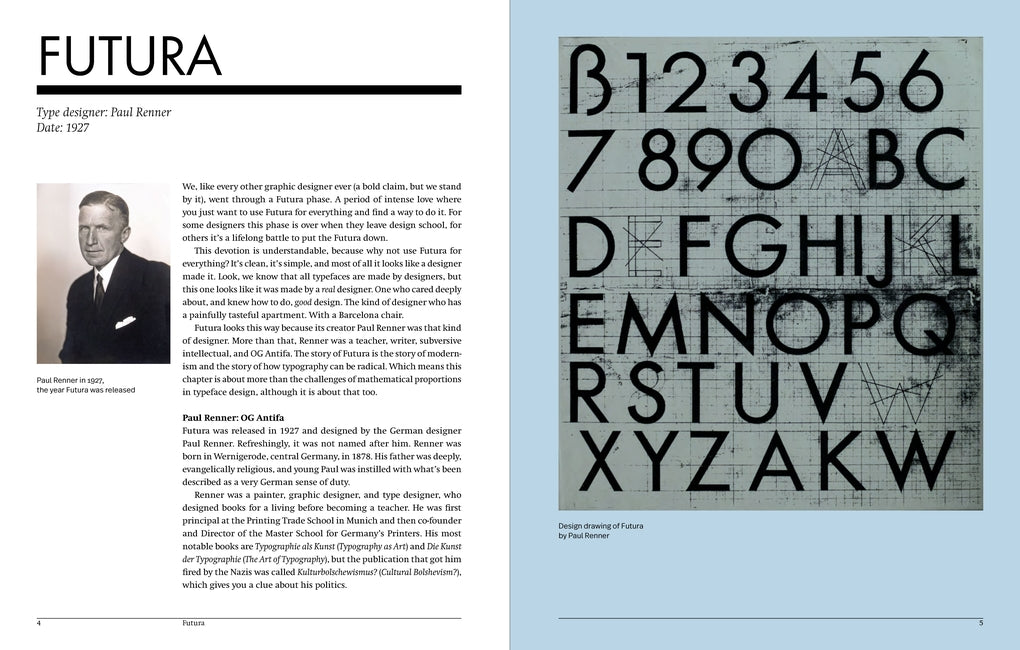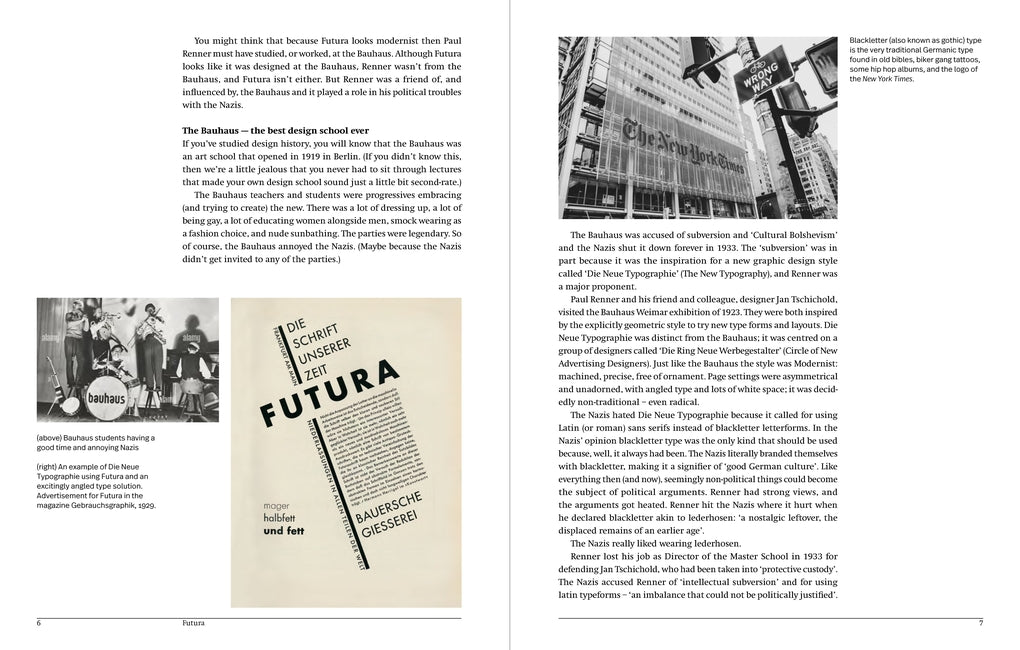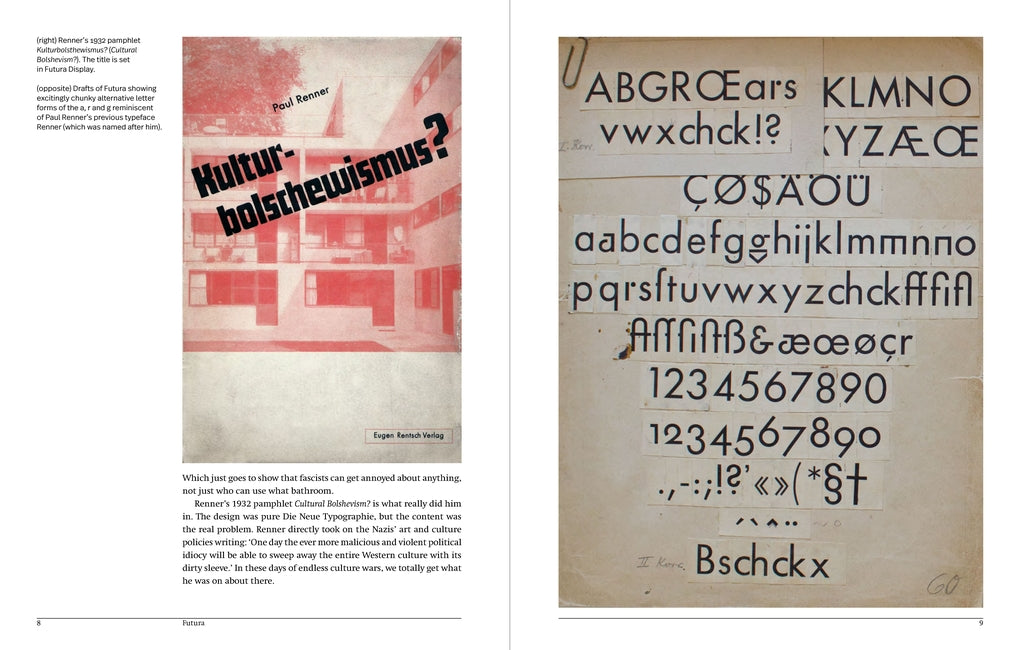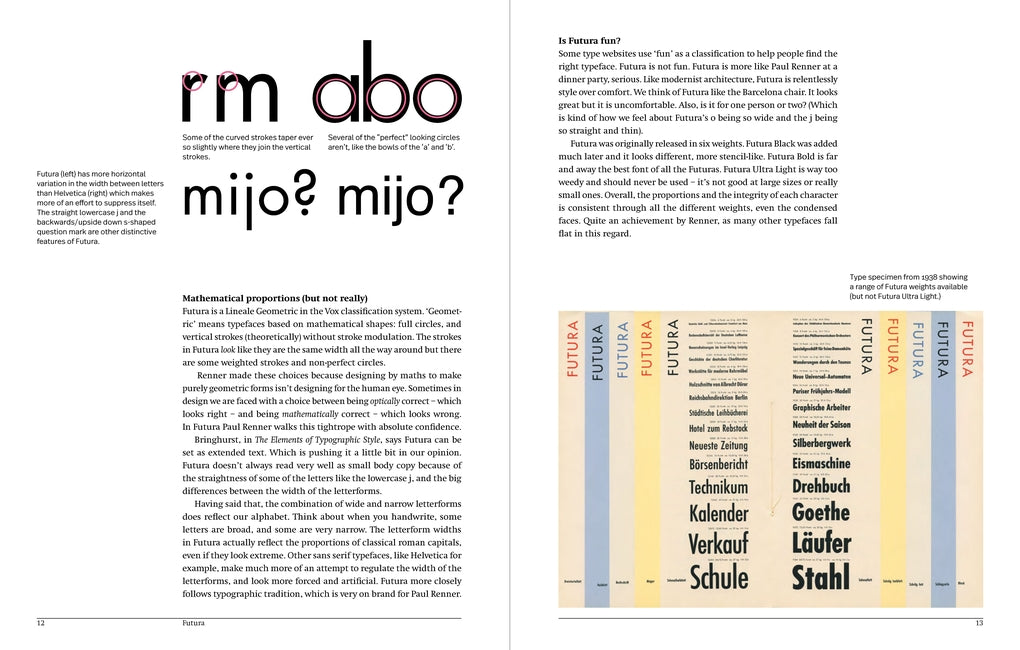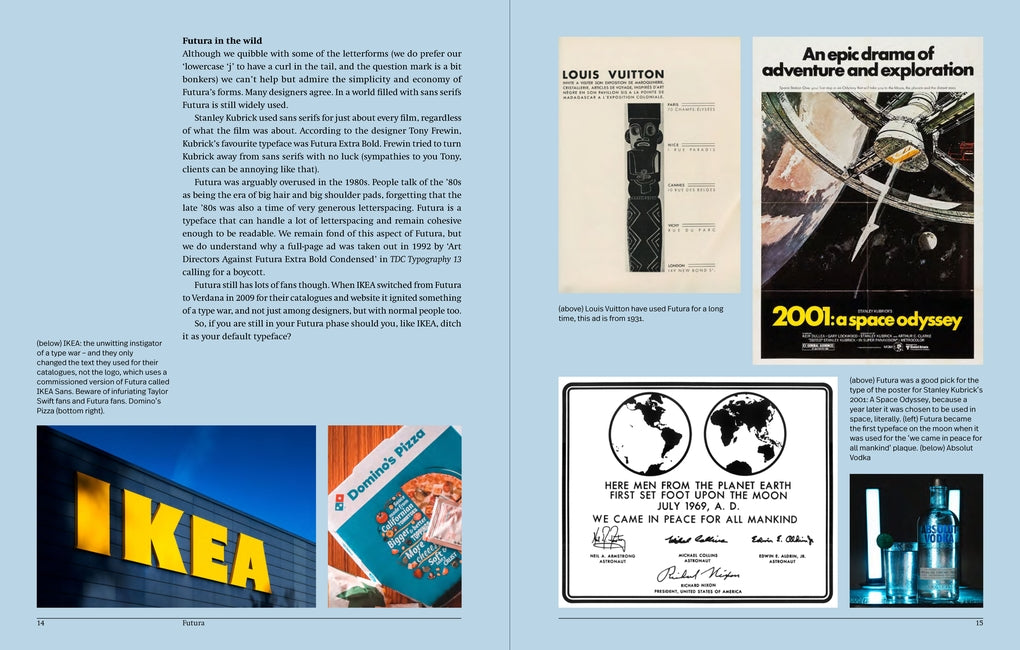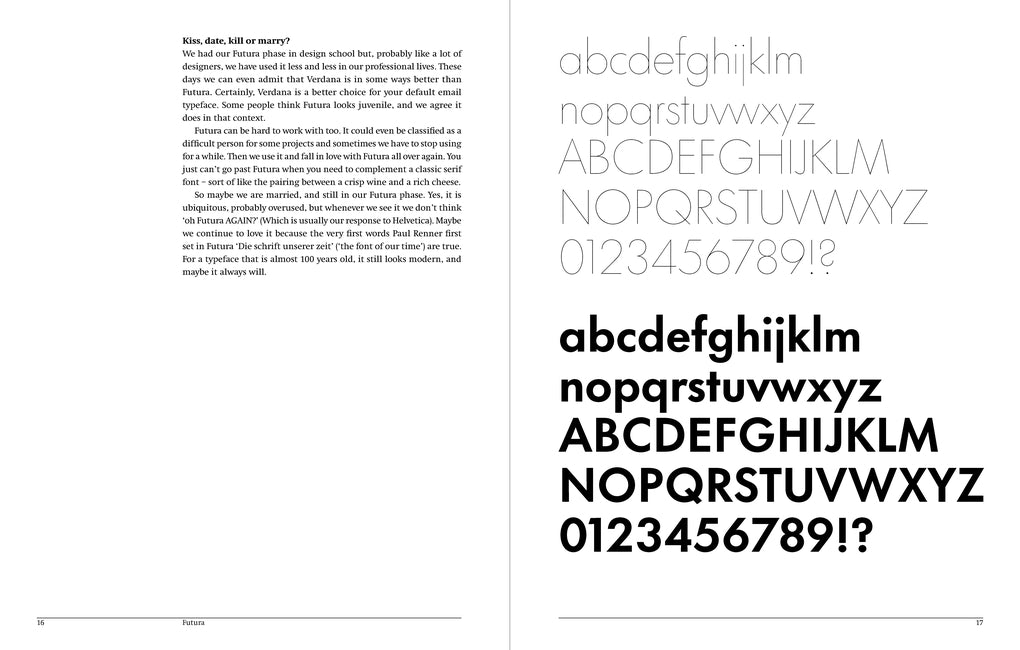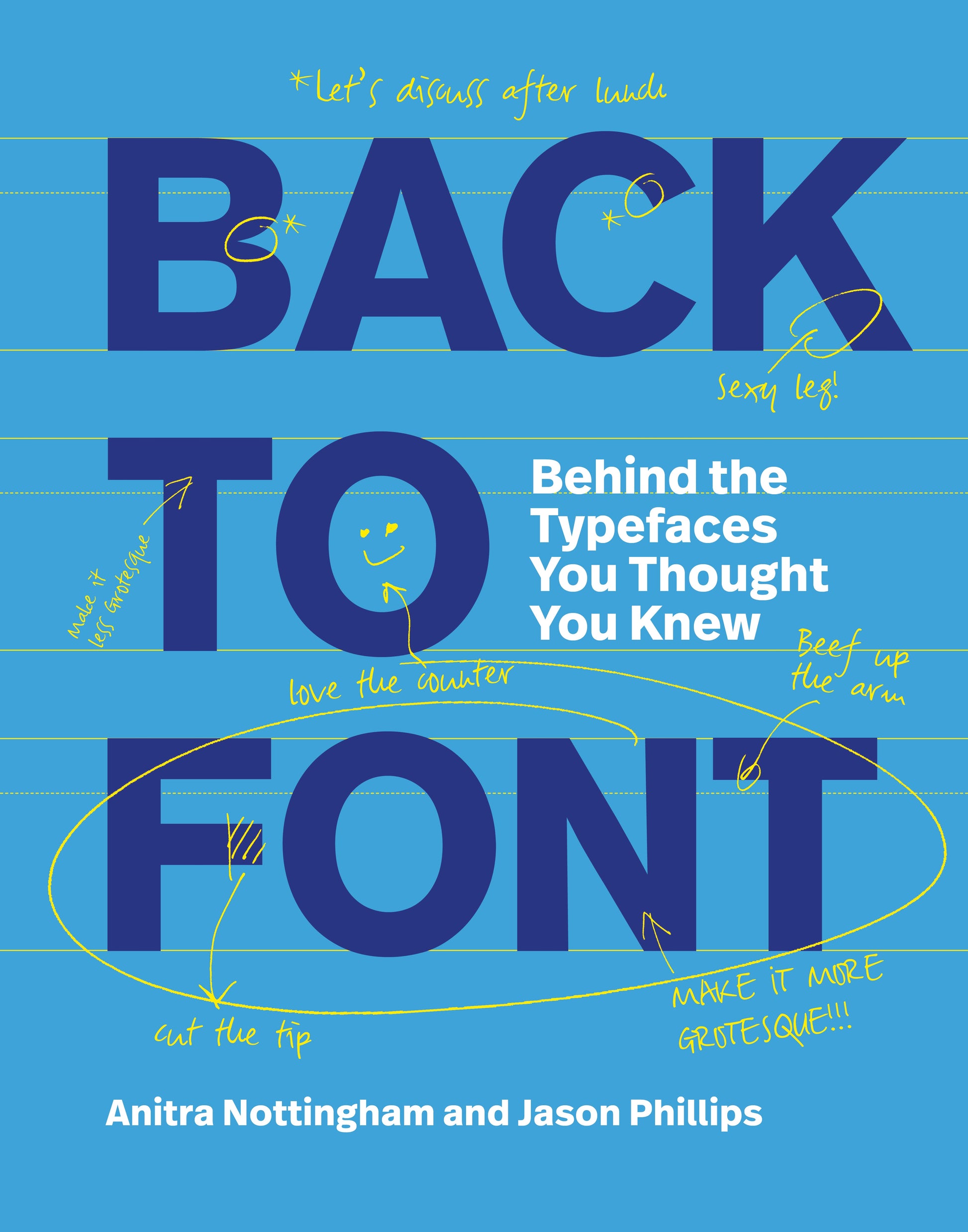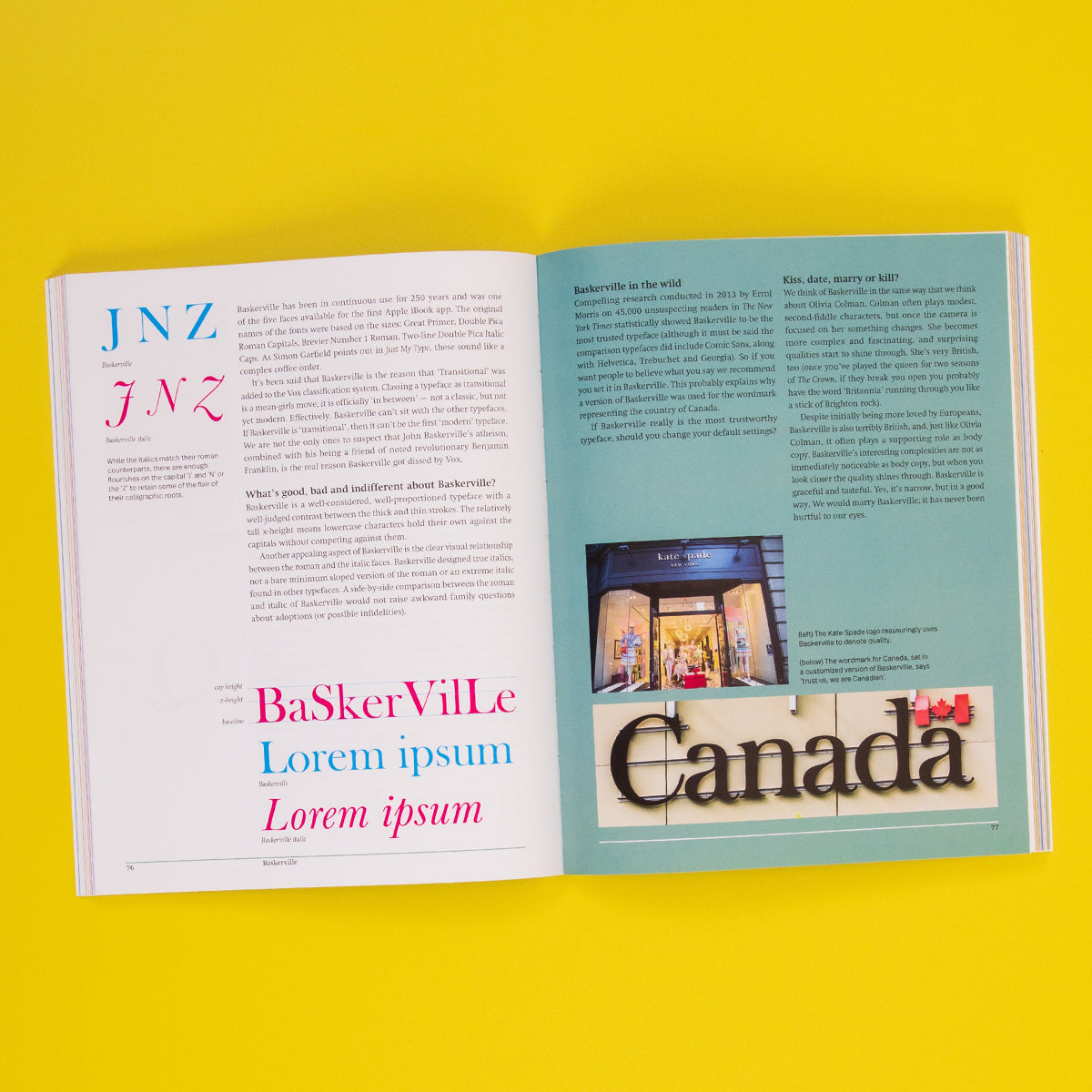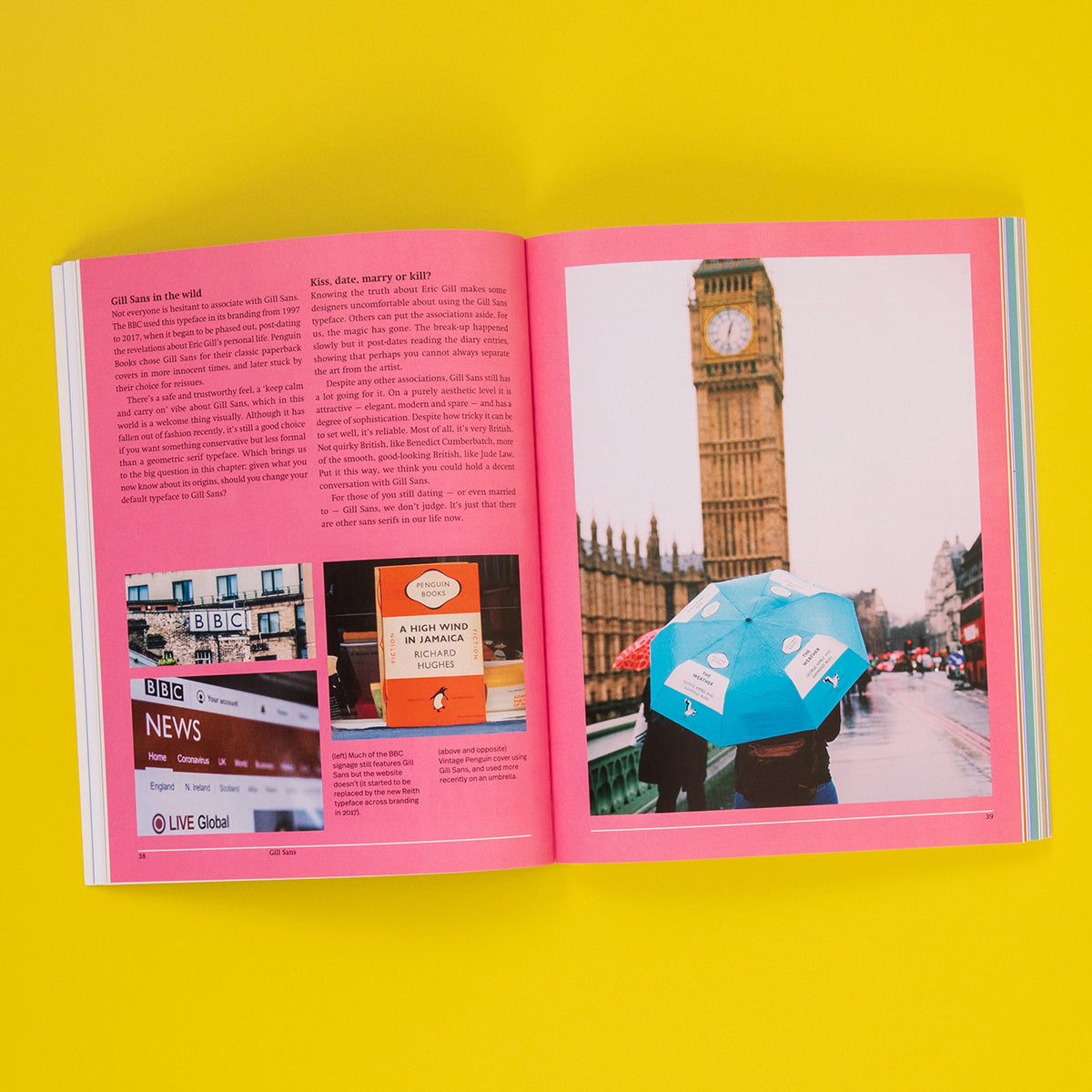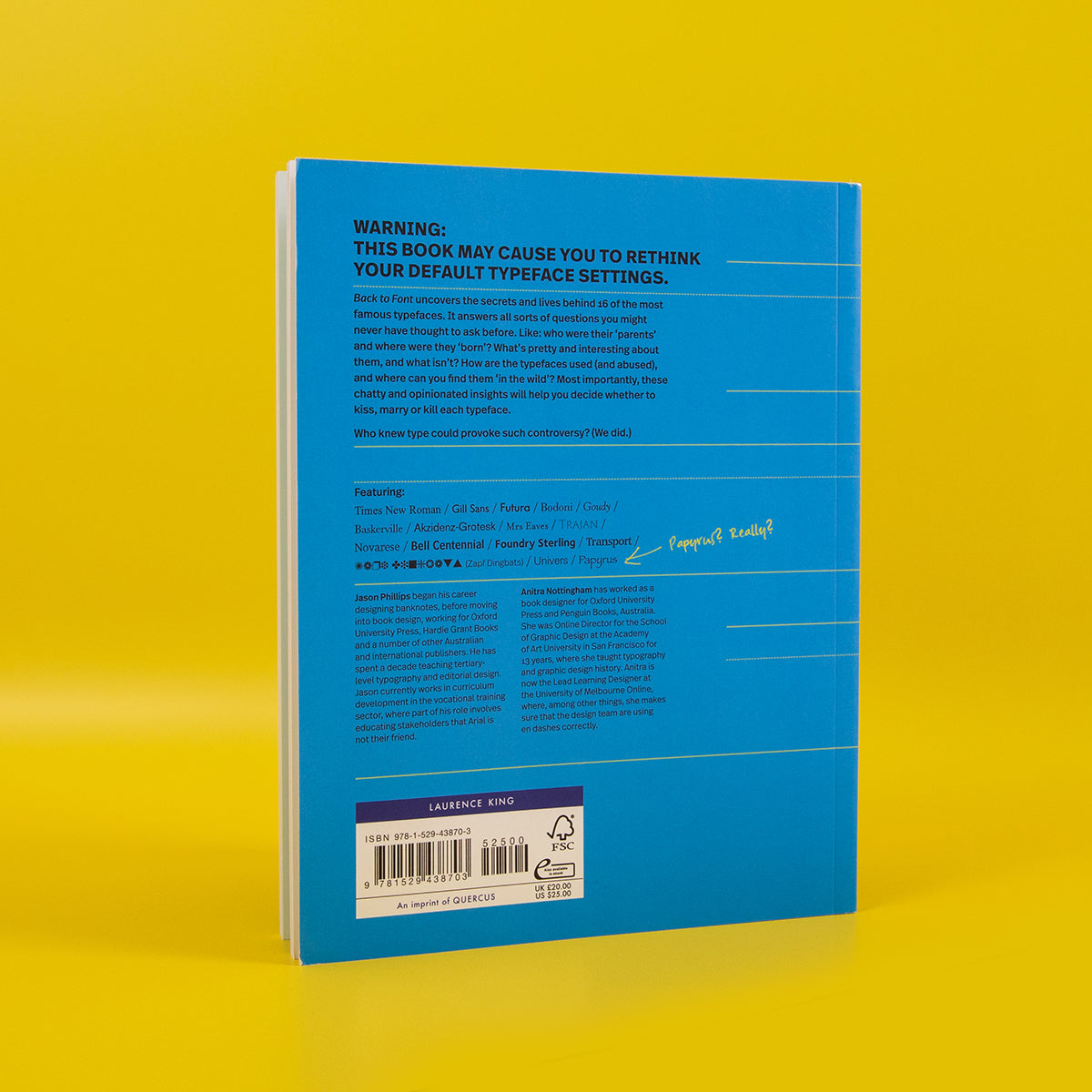
Back to Font
Behind the Typefaces You Thought You Knew
Warning: this book may cause you to rethink your default typeface settings.
Back to Font uncovers the secrets and lives behind 16 of the most famous typefaces. It answers all sorts of questions you might never have thought to ask before. Like: who were their 'parents' and where were they 'born'? What's pretty and interesting about them, and what isn't? How are the typefaces used (and abused), and where can you find them 'in the wild'? Most importantly, these chatty and opinionated insights will help you decide whether to kiss, marry or kill each typeface.
Who knew type could provoke such controversy? (We did.)
Featuring:
Times New Roman / Gill Sans / Futura / Bodoni / Goudy / Baskerville / Akzidenz Grotesk /
Mrs Eaves / Trajan / Novarese / Bell Centennial / Foundry Sterling / Transport /
Zapf Dingbats / Univers / Papyrus